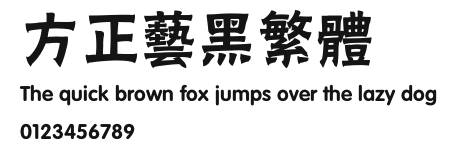
方正艺黑繁体 Preview
• Font Name: 方正艺黑繁体
• Full Font Name: 方正艺黑繁体
About 方正艺黑繁体.ttf
方正艺黑繁体.ttf is a modern, elegant sans-serif font designed for ultimate readability and visual harmony. Perfect for branding, headlines, web design, and print materials.